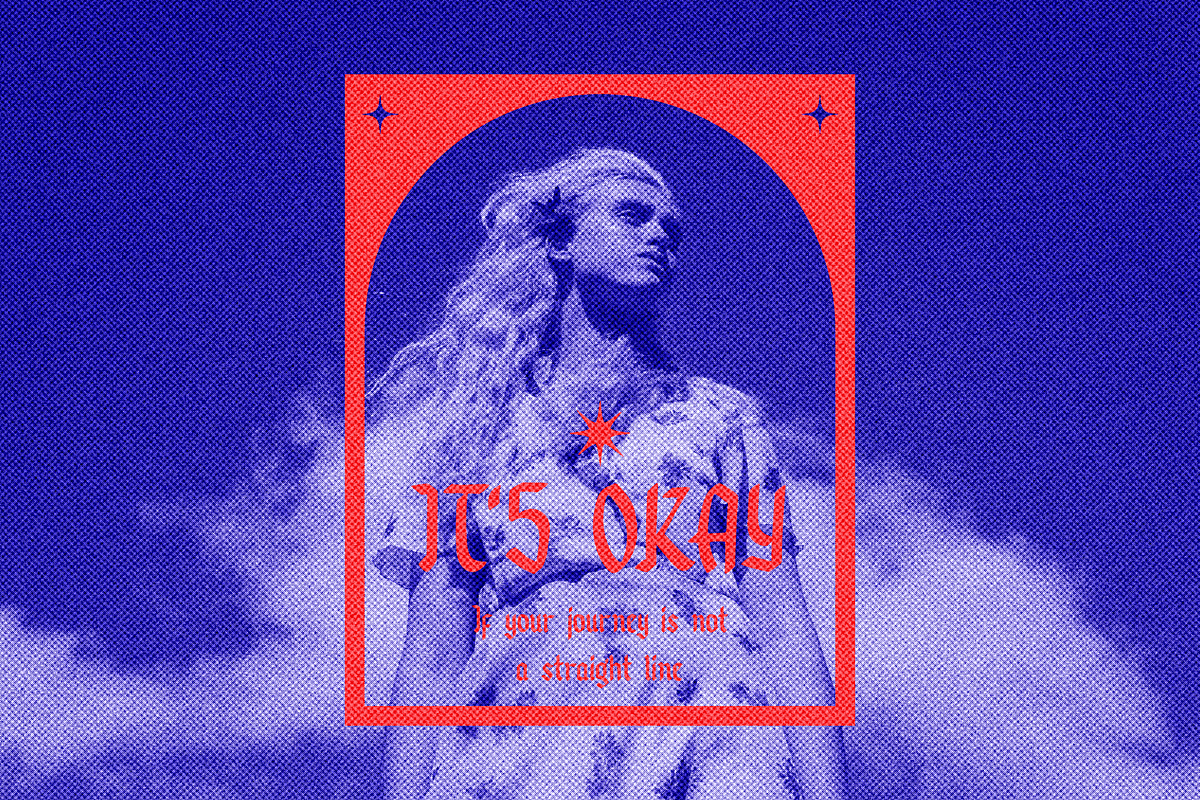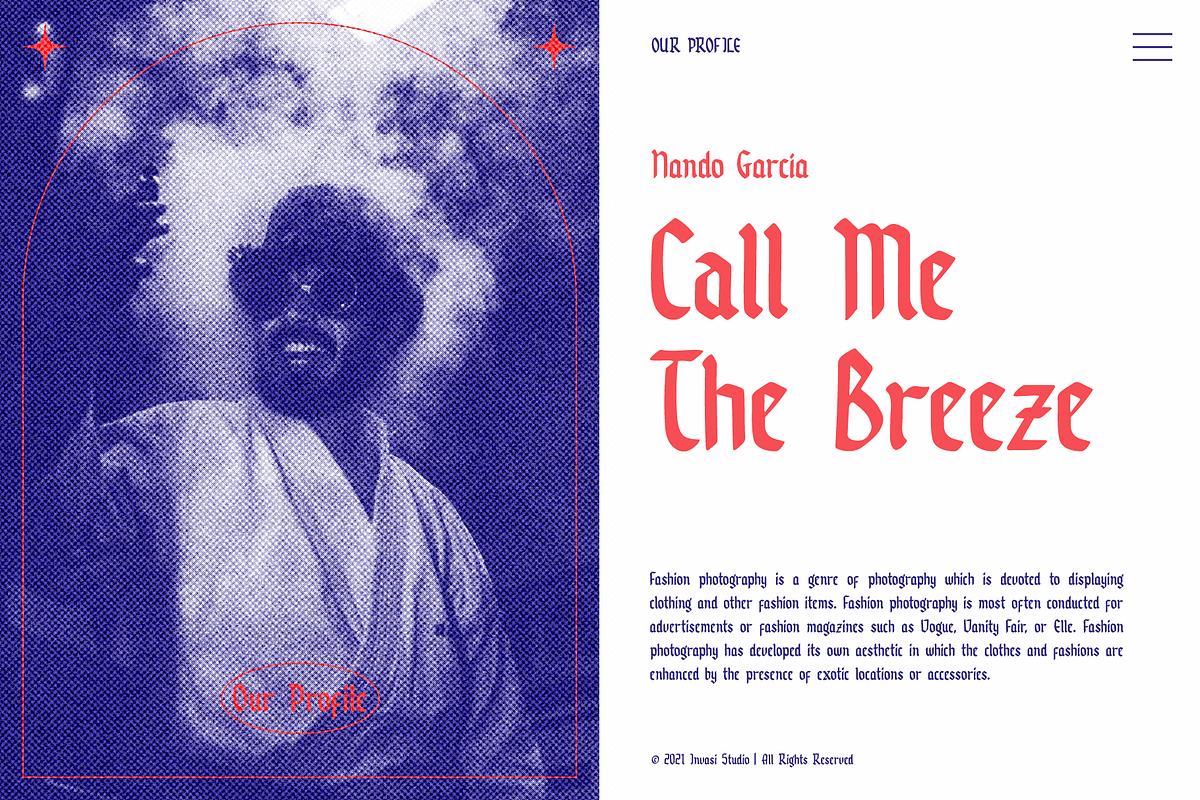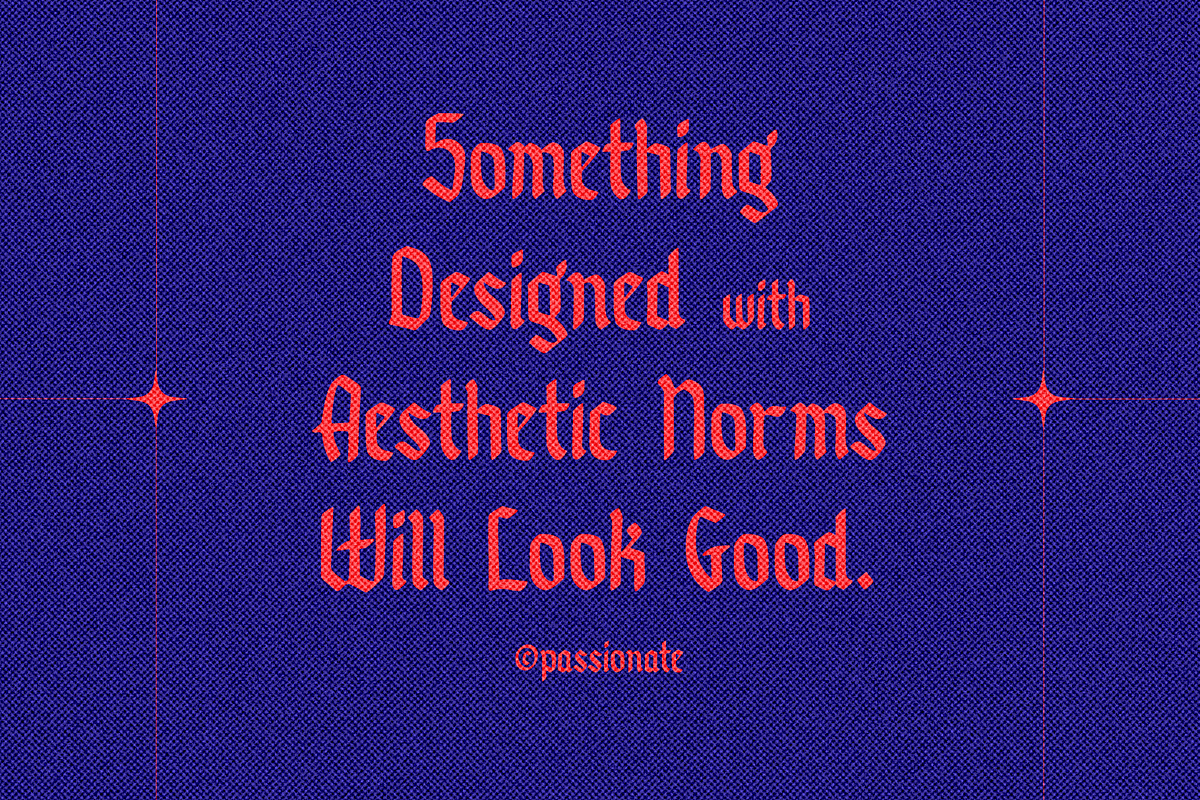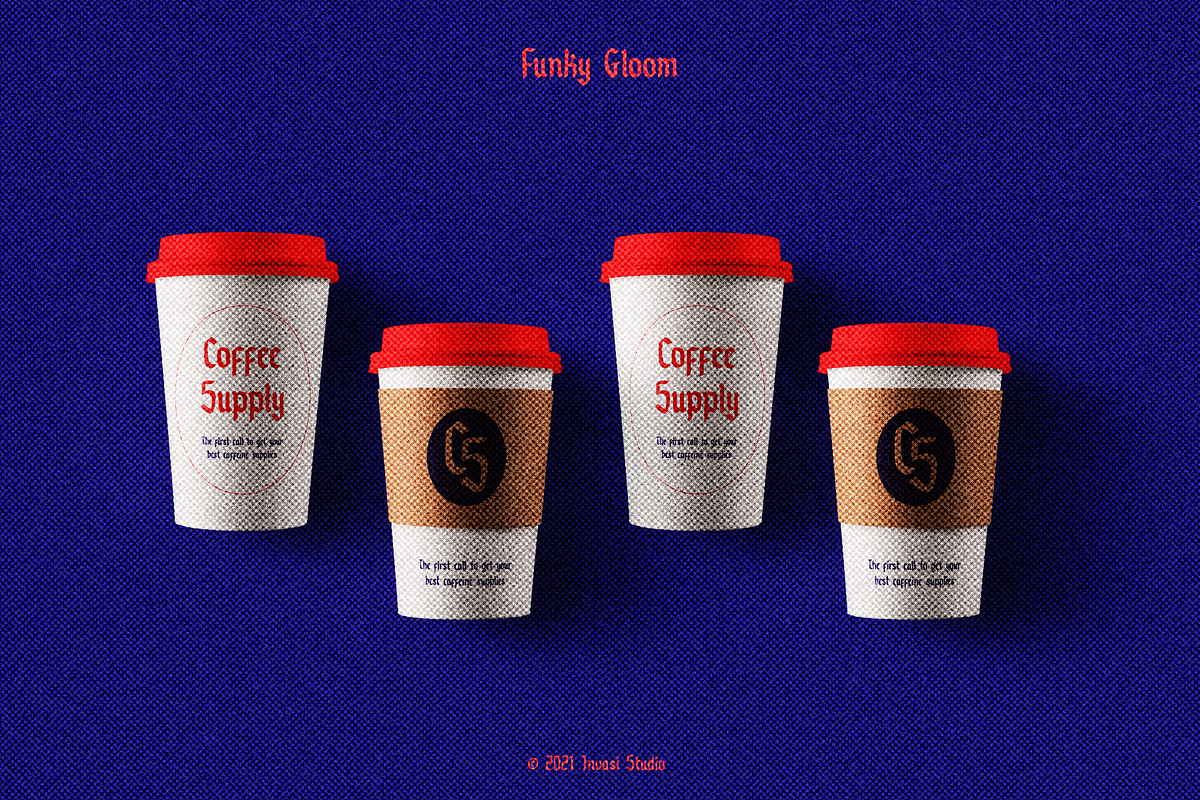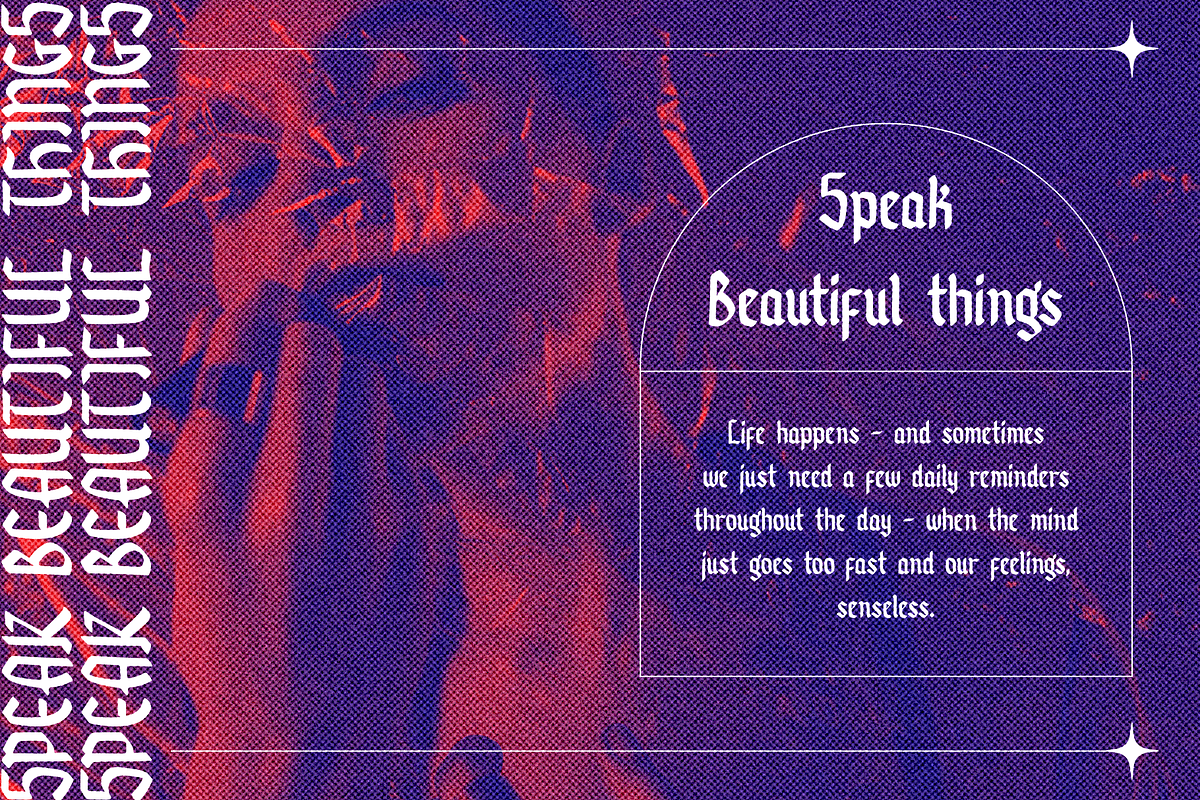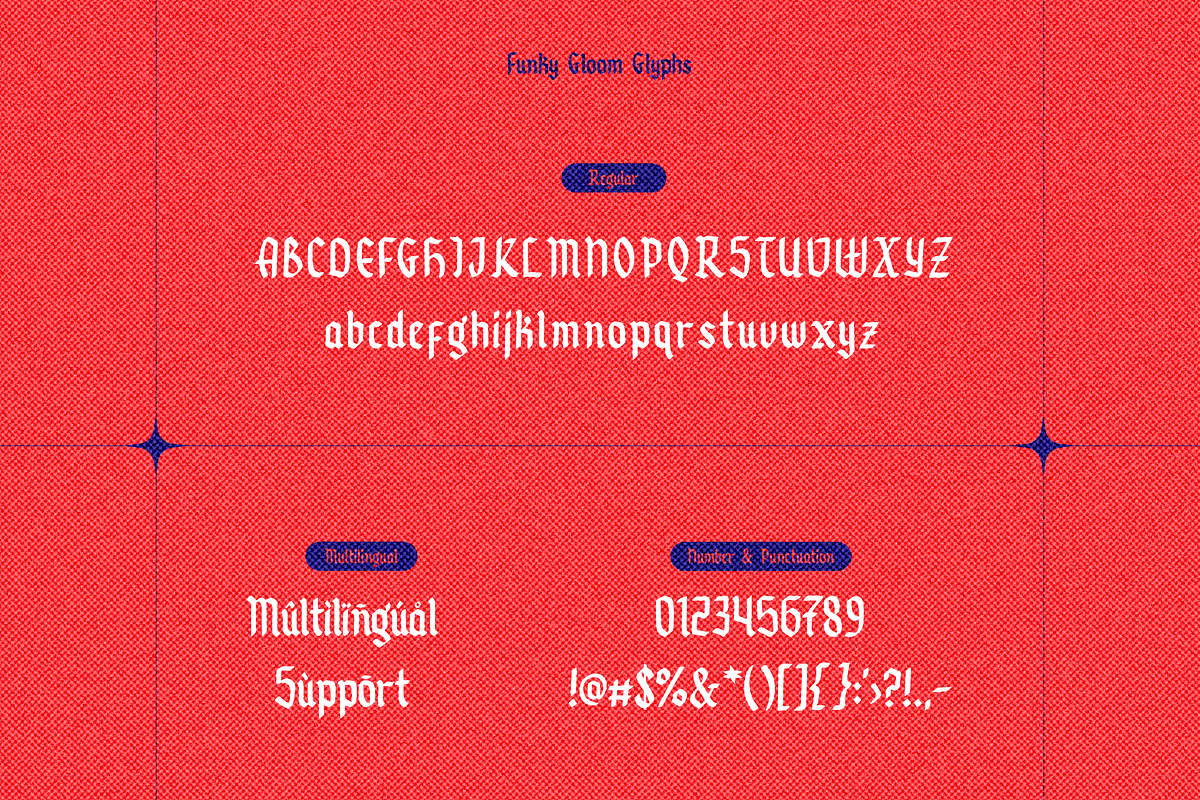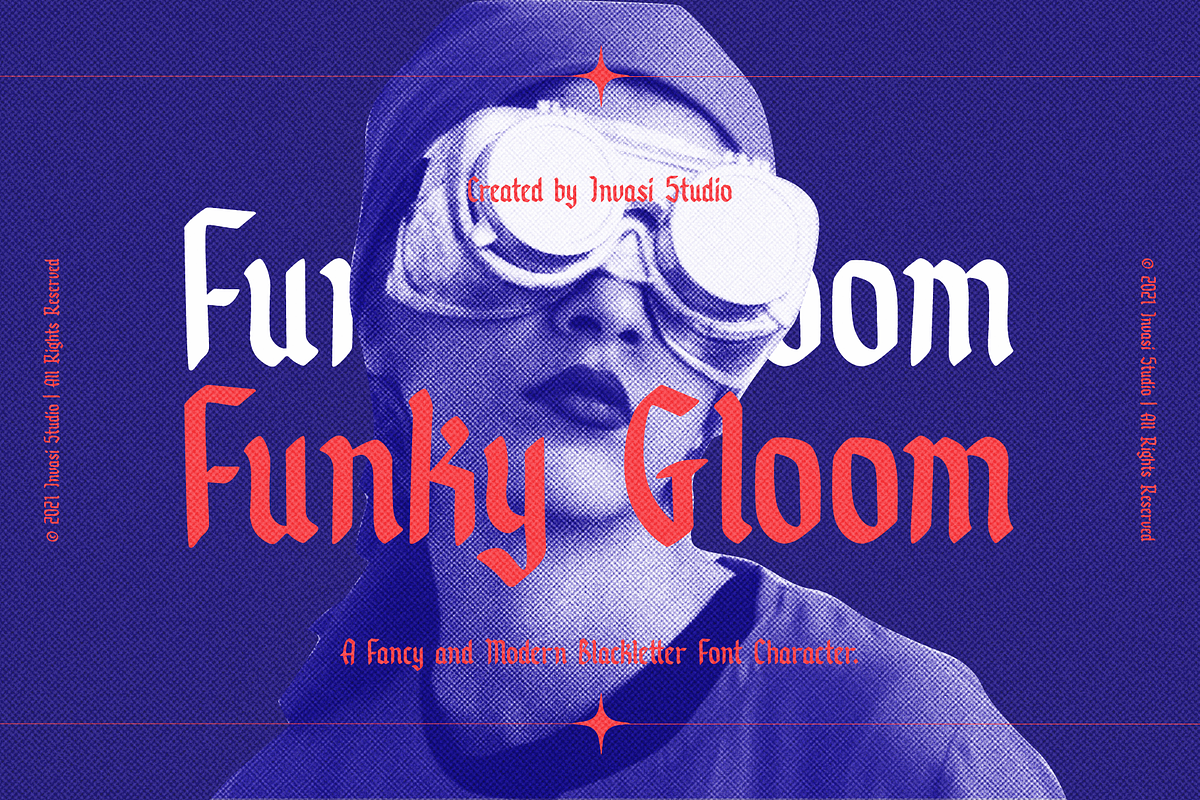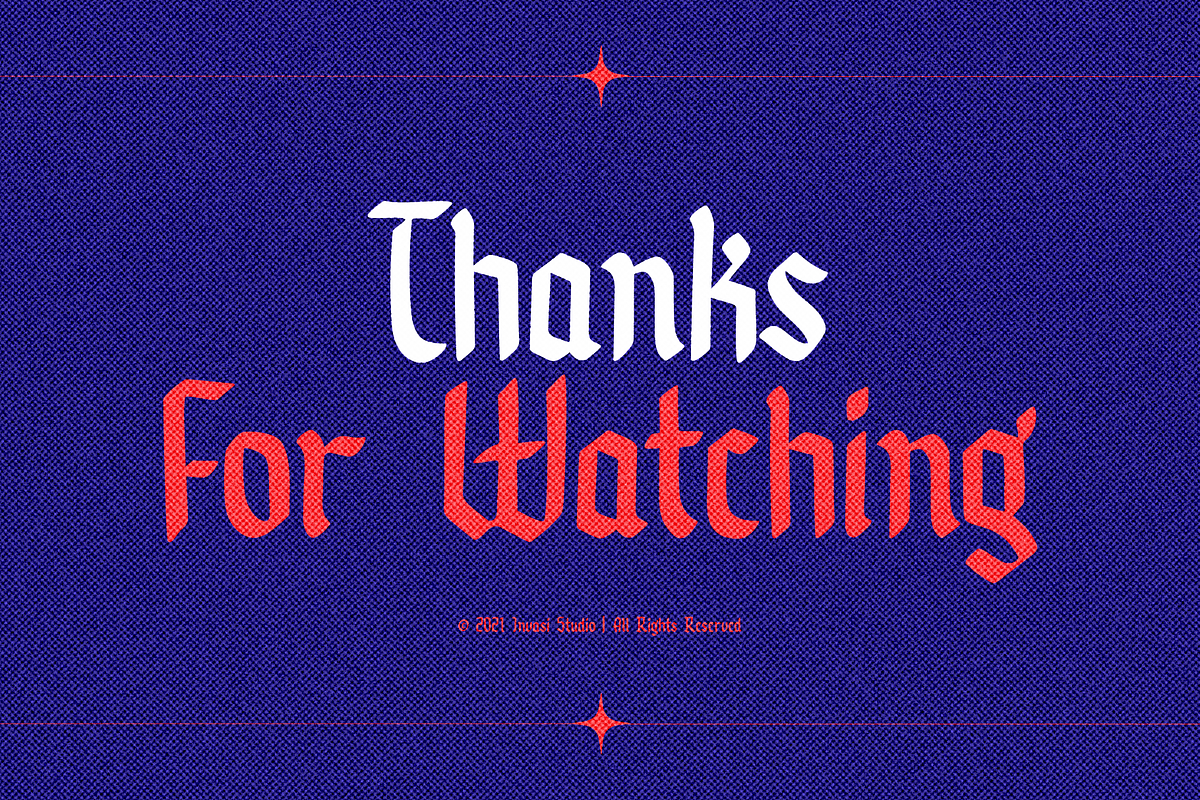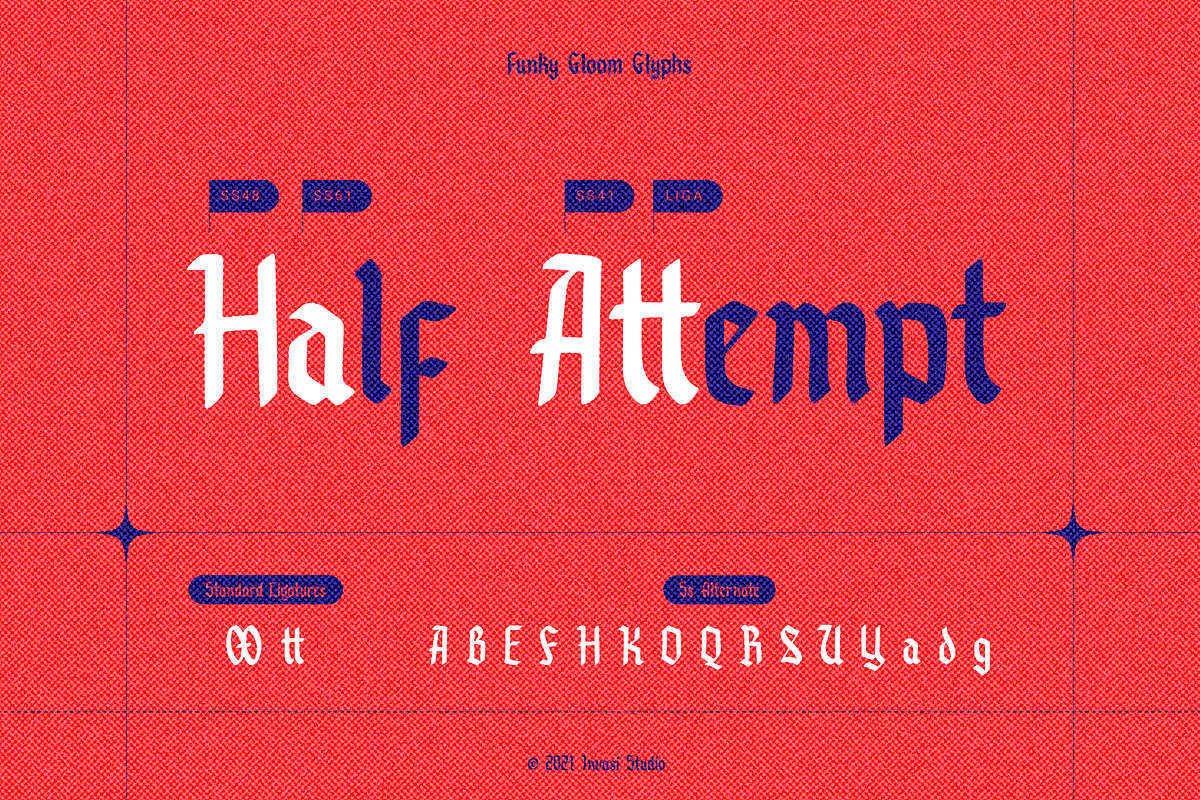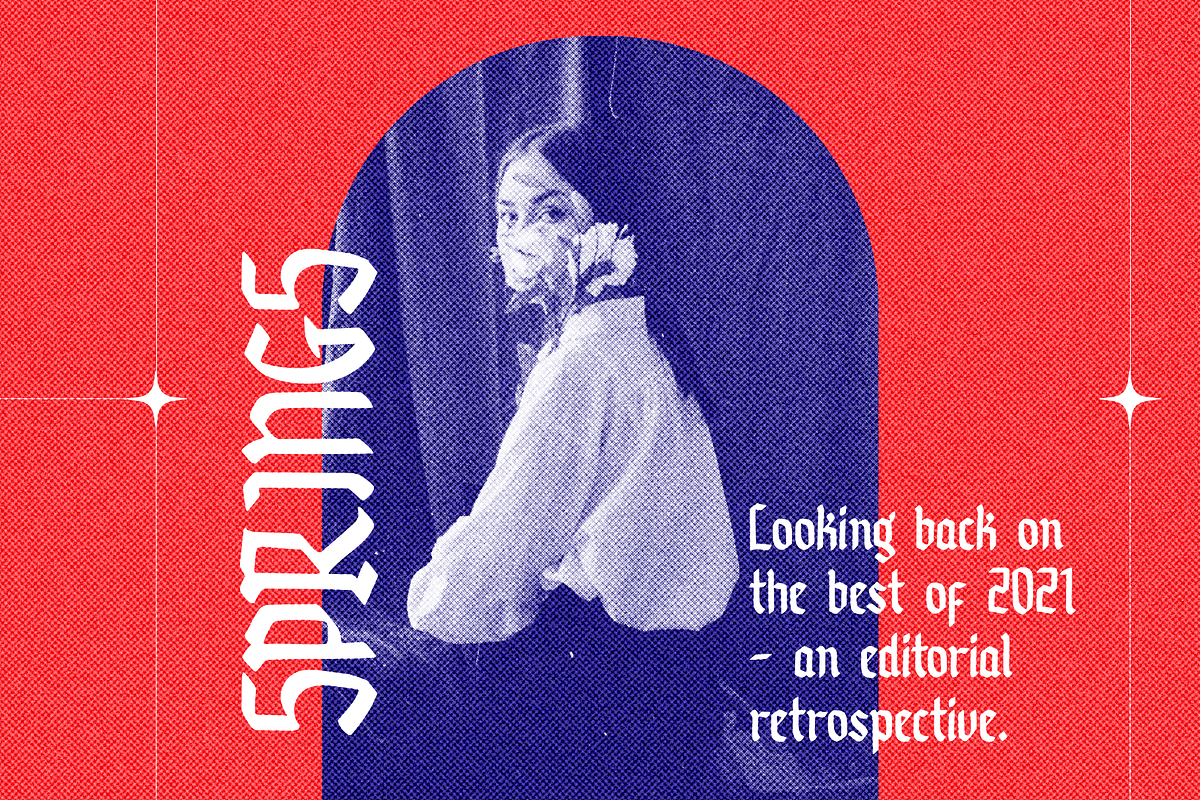
Funky Gloom - Fancy Blackletter
Introduction Funky Gloom Font is a Fancy and modern font with a Blackletter style, special for your Display or Body text Design, which puts a bold on your projects and will inspire you to create something unique or modern look design.
Funky Gloom Font will help you to create special and touching typographical designs for your Display or Body text project, it is perfect for headings, flyers, greeting cards, product packaging, book cover, printed quotes, logotype, apparel design, album covers.
Funky Gloom Features:
- Multi-language